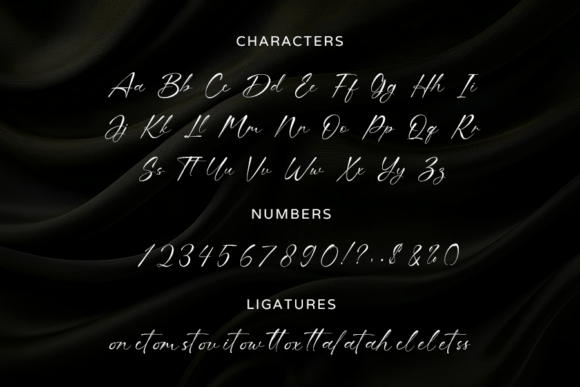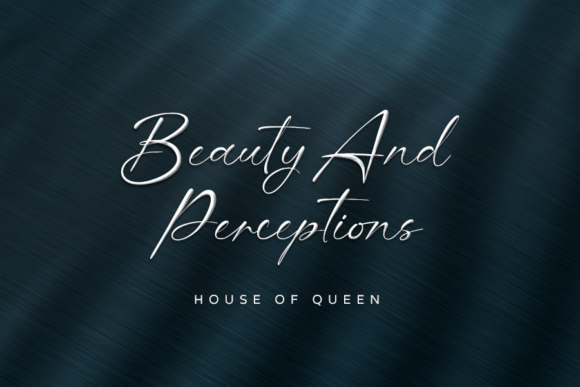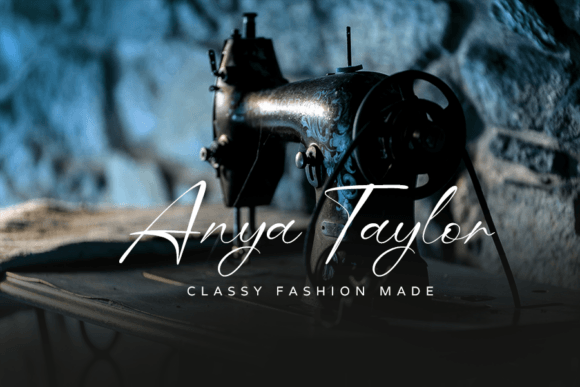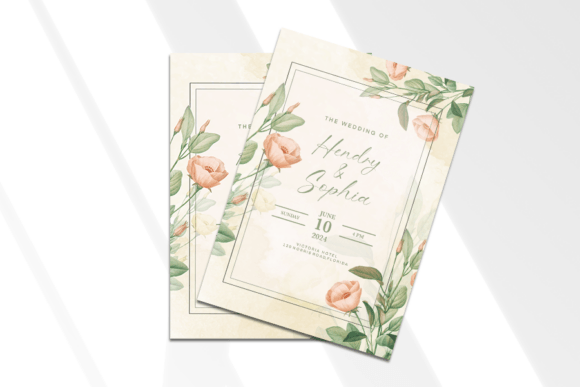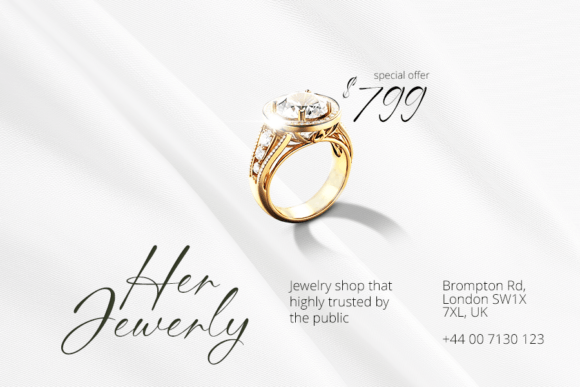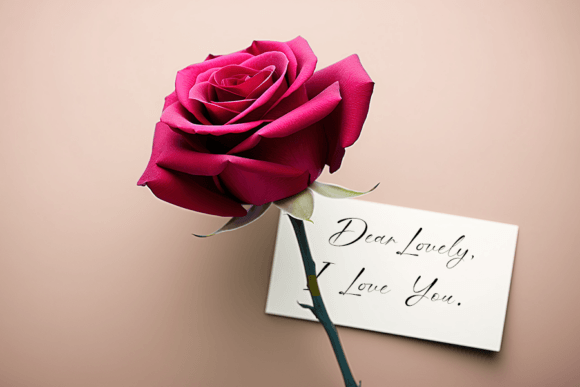
Introduction to Bristy Signature Font
Immerse your designs in elegance with Bristy Signature, a sophisticated script font that oozes class.
Its graceful curves and delicately refined strokes create an air of upscale luxury, providing the precise touch of finesse your creative projects crave Transcend the ordinary with Bristy Signature, the perfect font for book titles, logos, and crafting, or make your branding and advertising materials stand out with its timeless beauty.
Key Features of Bristy Signature Font
Why Choose Bristy Signature Font?
Bristy Signature Font offers exceptional quality and versatility, making it a valuable addition to your design toolkit. Whether you’re creating for personal projects or commercial use, Bristy Signature Font delivers professional results.